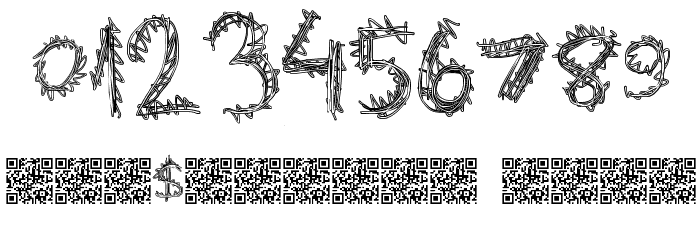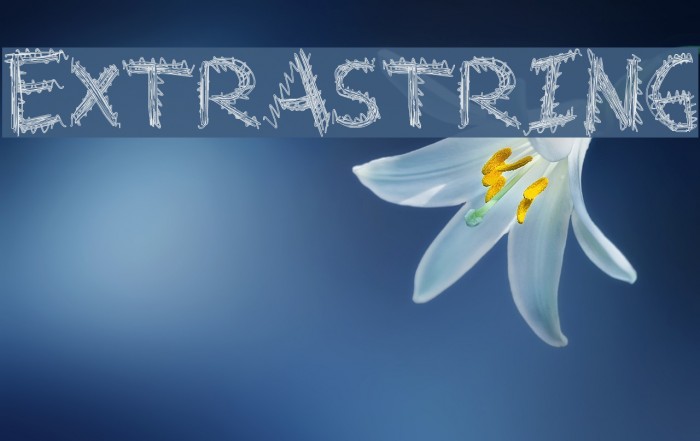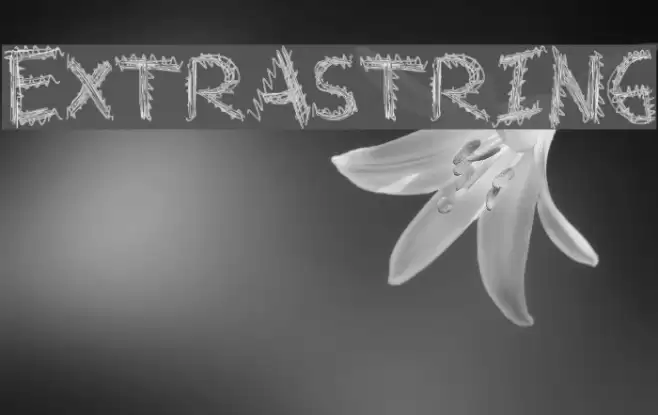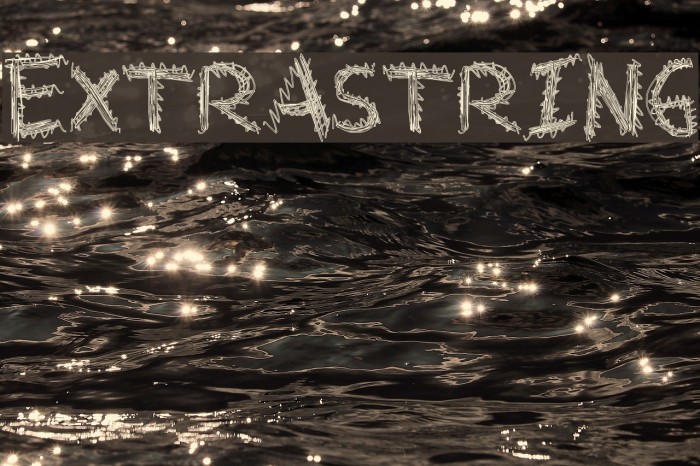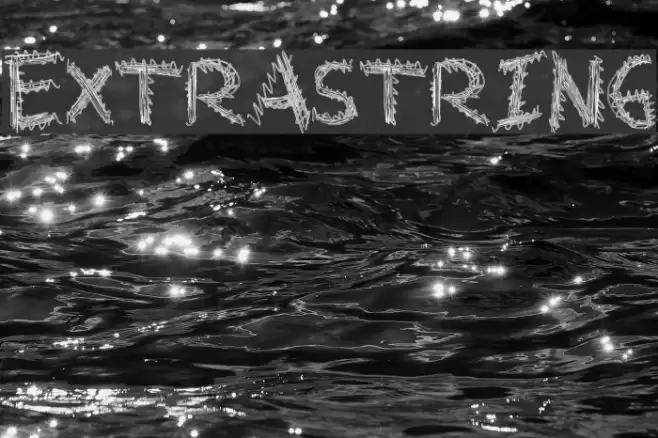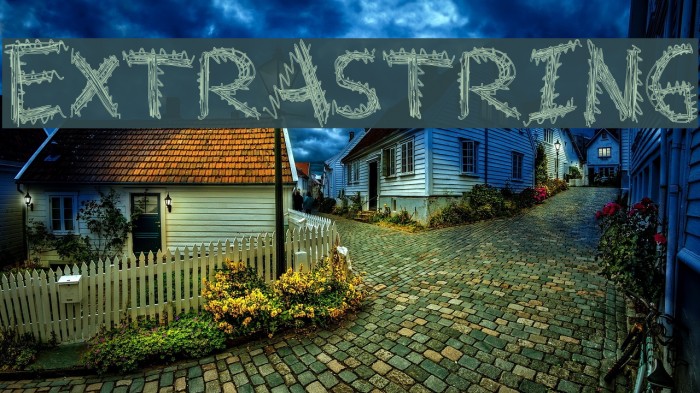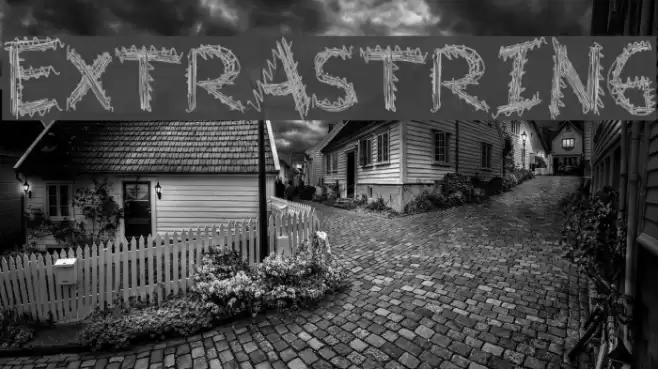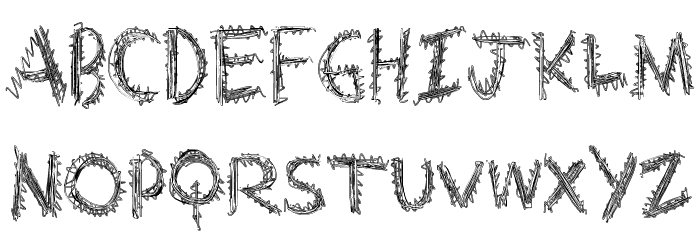
ExtraString Font
ExtraString Description
This font features a highly decorative and intricate design, with each character appearing as if it is constructed from a series of jagged, thorn-like elements. The letters have an organic, almost chaotic appearance, with varying line thicknesses that give them a dynamic and edgy feel. The uppercase and lowercase letters maintain this consistent style, creating a cohesive yet wild aesthetic. Numbers and special characters are equally adorned, ensuring a uniform look across all glyphs. This font is ideal for projects that require a bold, unconventional statement.